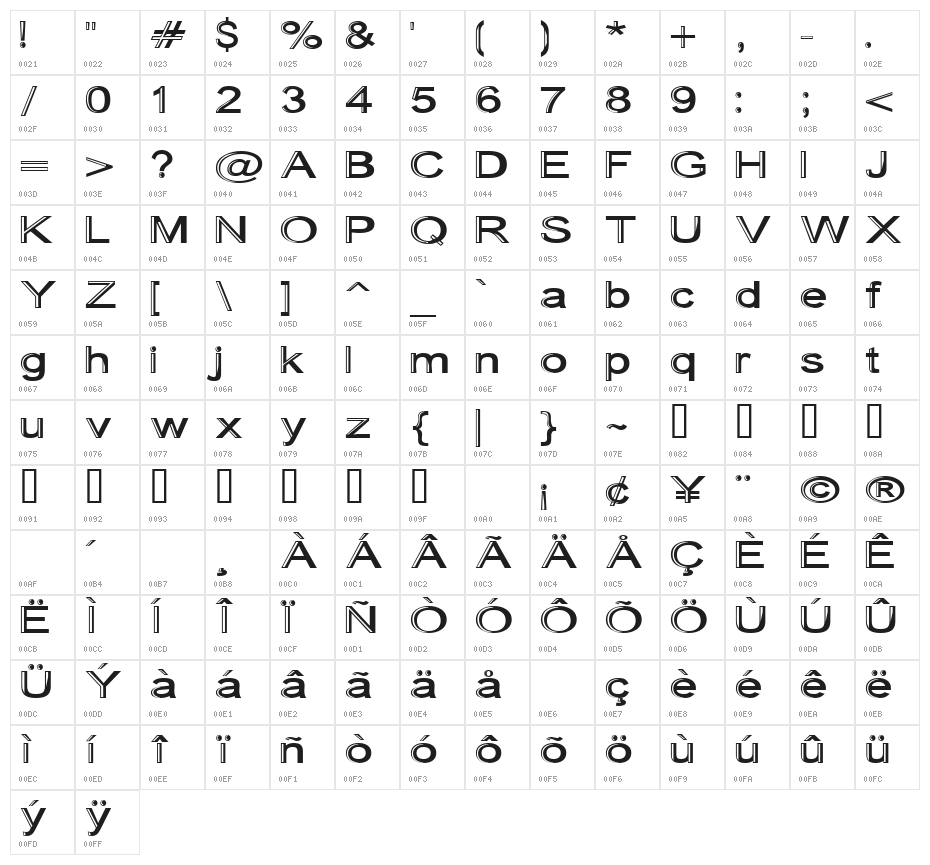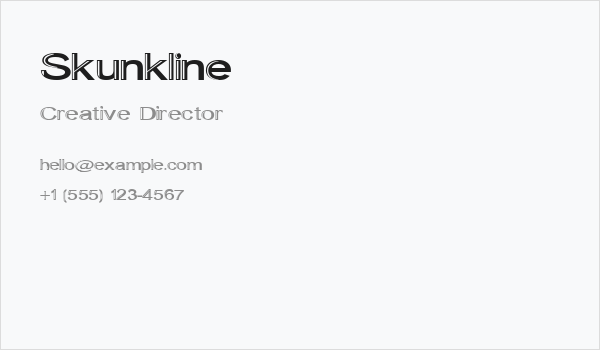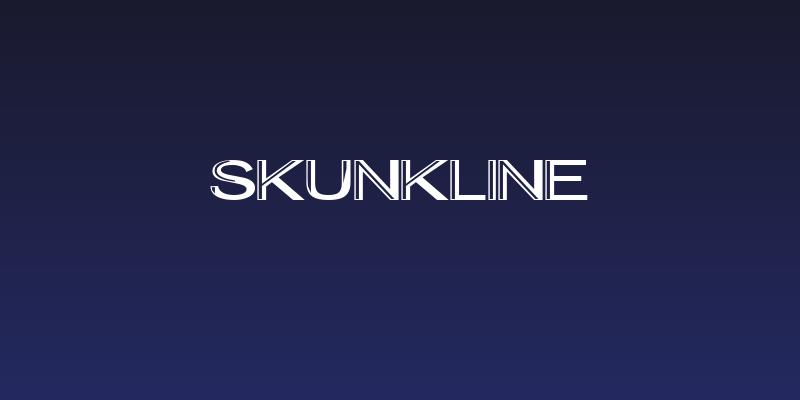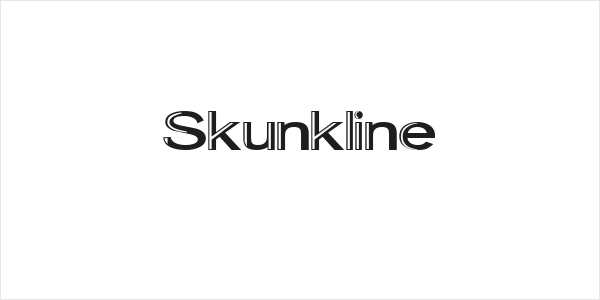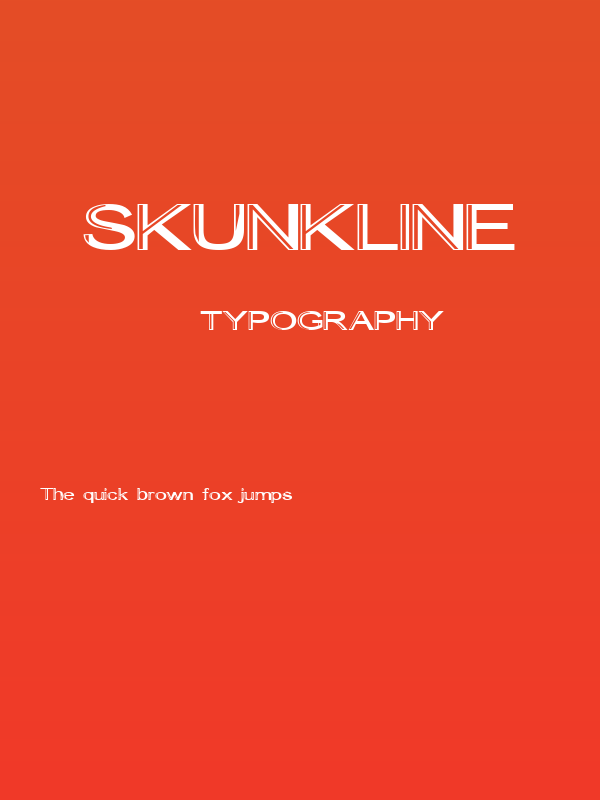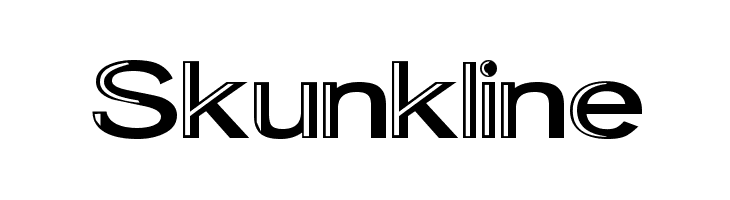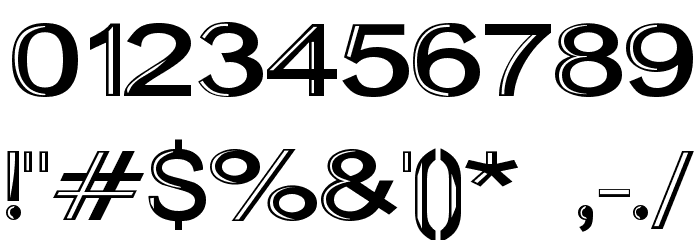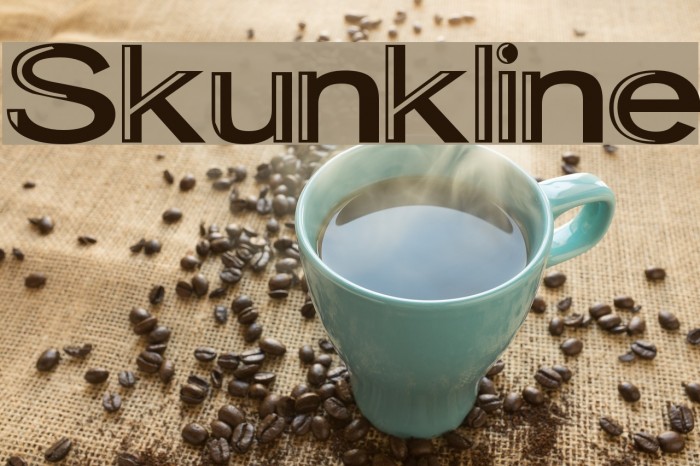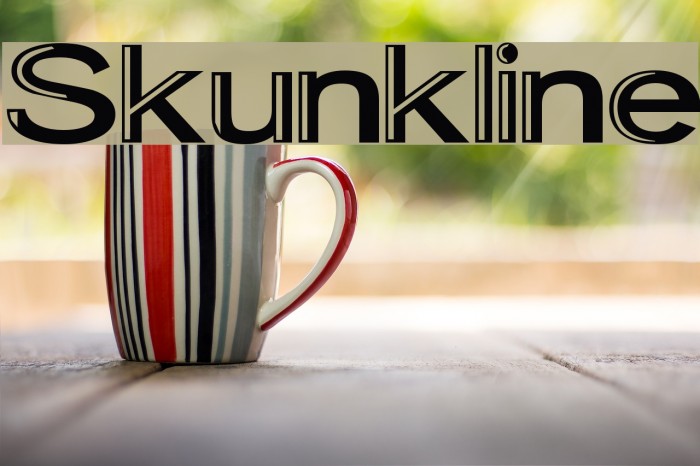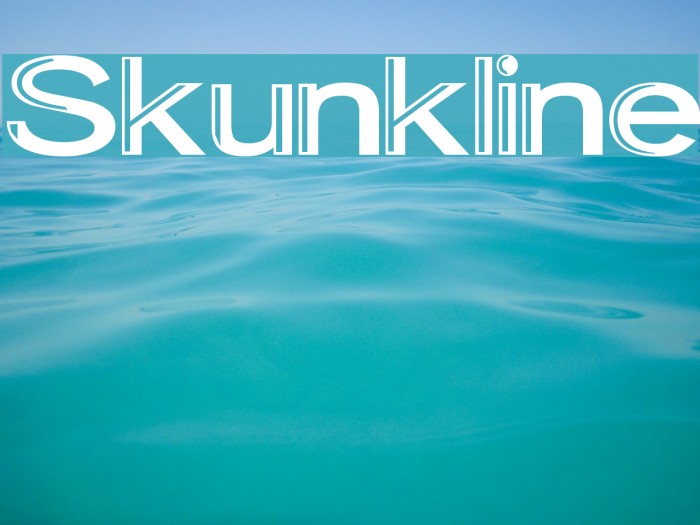
Skunkline Font
Skunkline Description
This font features a bold and modern design with a unique dual-line style that creates a striking visual impact. The uppercase letters are characterized by clean, geometric shapes with a slight slant, adding a dynamic feel. The lowercase letters maintain a similar style, ensuring consistency throughout the typeface. Numbers and special characters are designed to match the boldness and modernity of the alphabet, making them suitable for various applications. The font's distinct appearance makes it ideal for attention-grabbing headlines and creative projects that require a contemporary and edgy look.
| Proposed Projects | Ideal for headlines, branding, advertising, and modern design projects. |